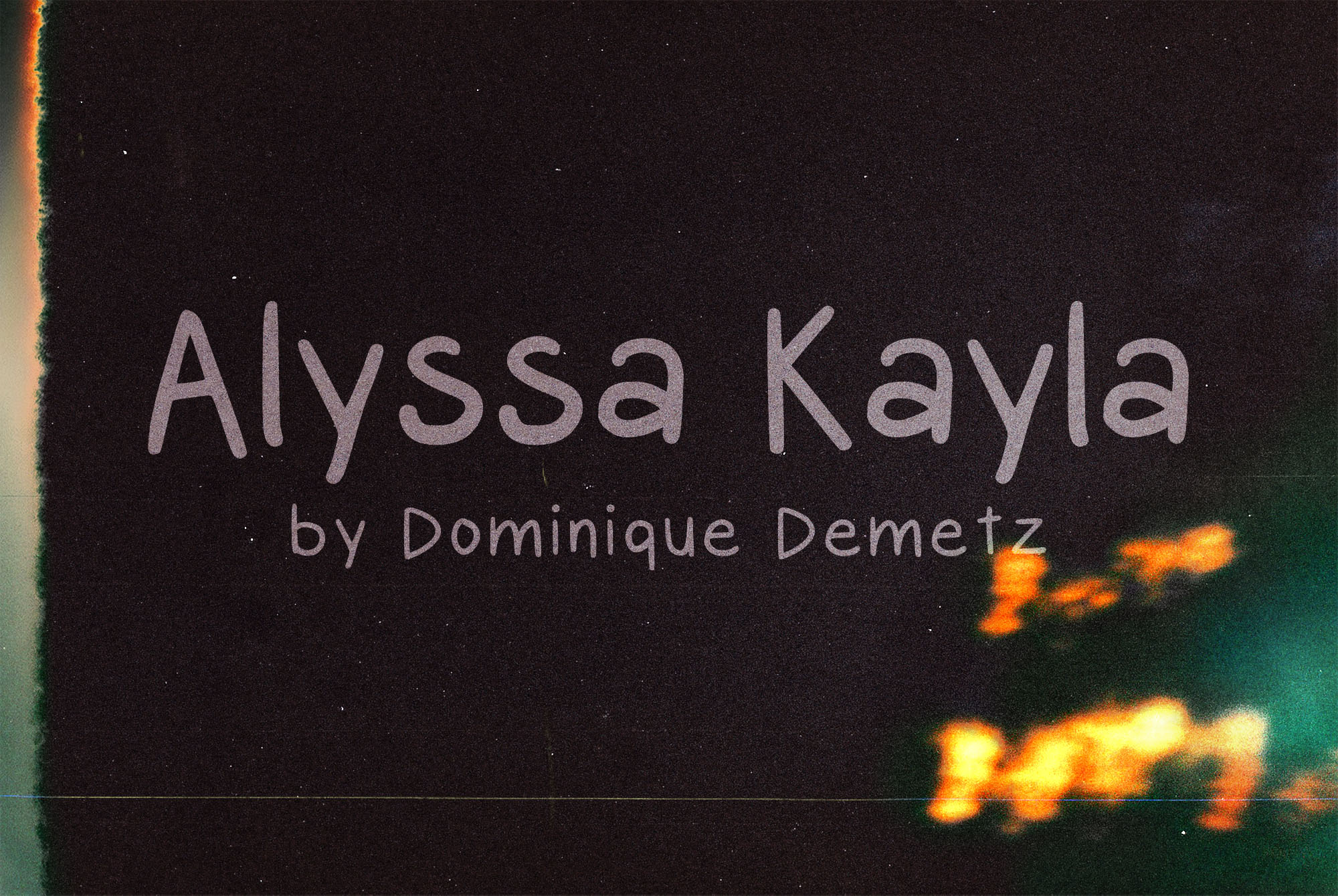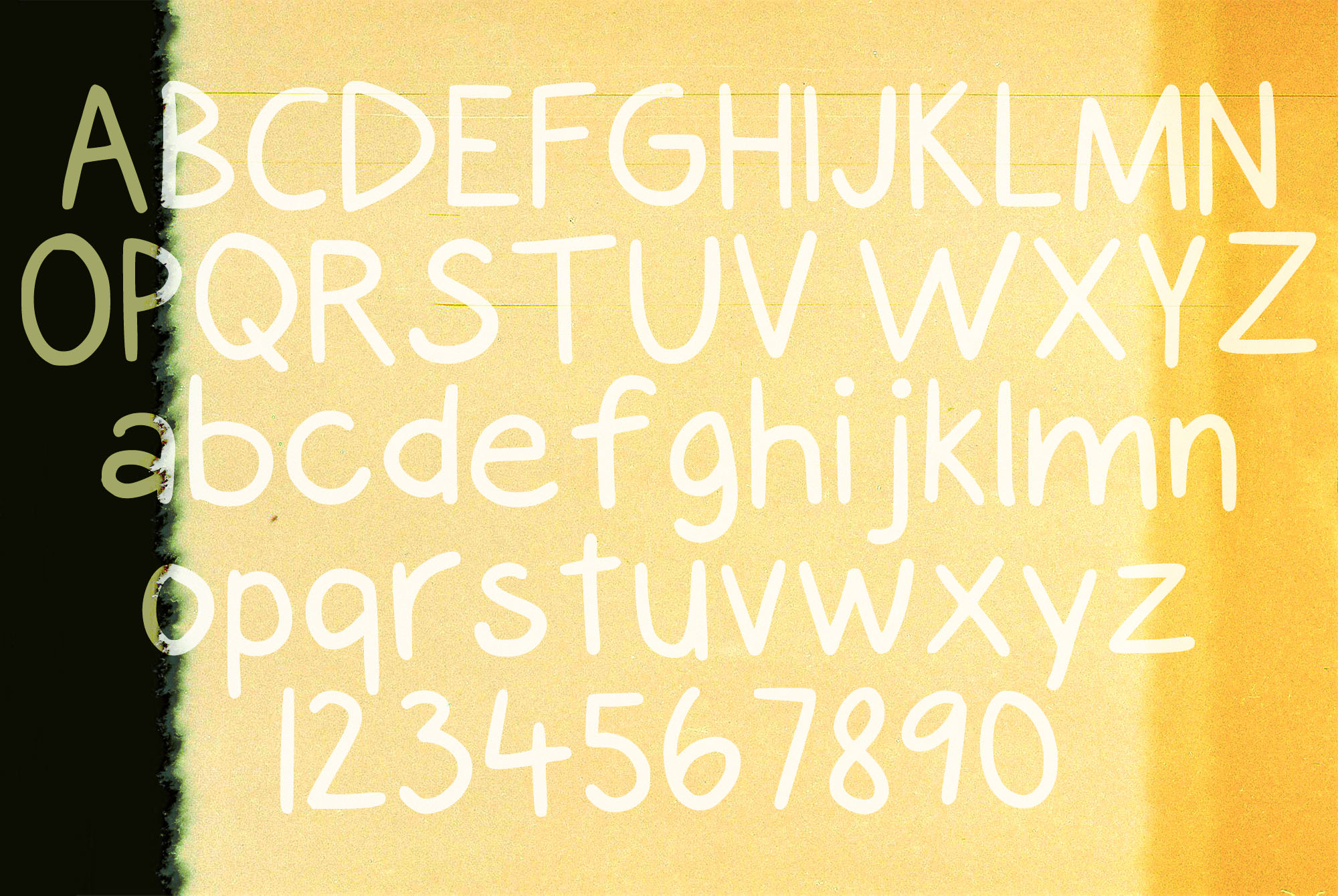
Alyssa Kayla Font
About Alyssa Kayla Font
Alyssa Kayla is a fun and carefree handwritten font; friendly and genuine, this font can give your designs an appealing and cutesy charm.